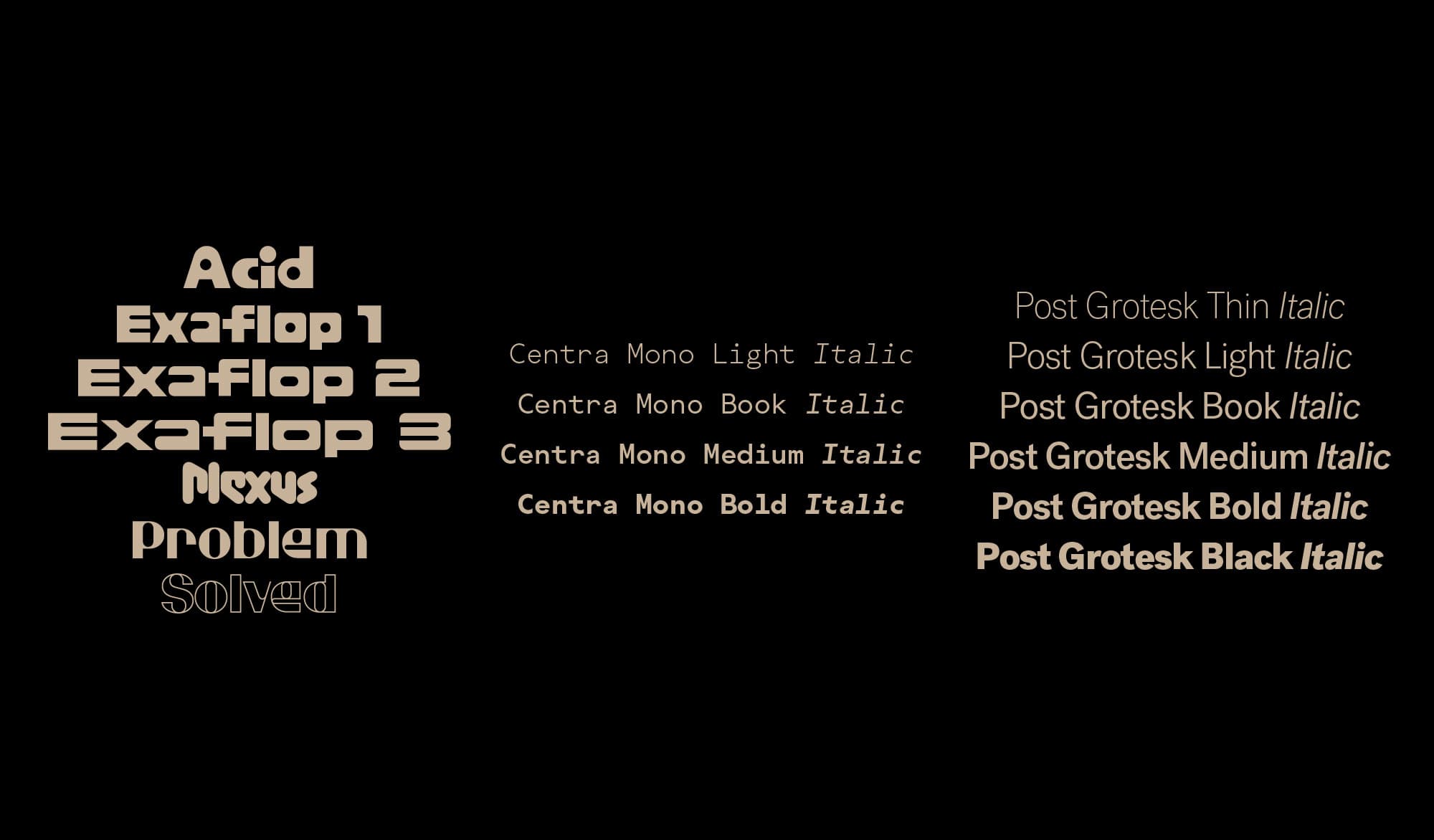
"The stage is home, and home is a stage!"
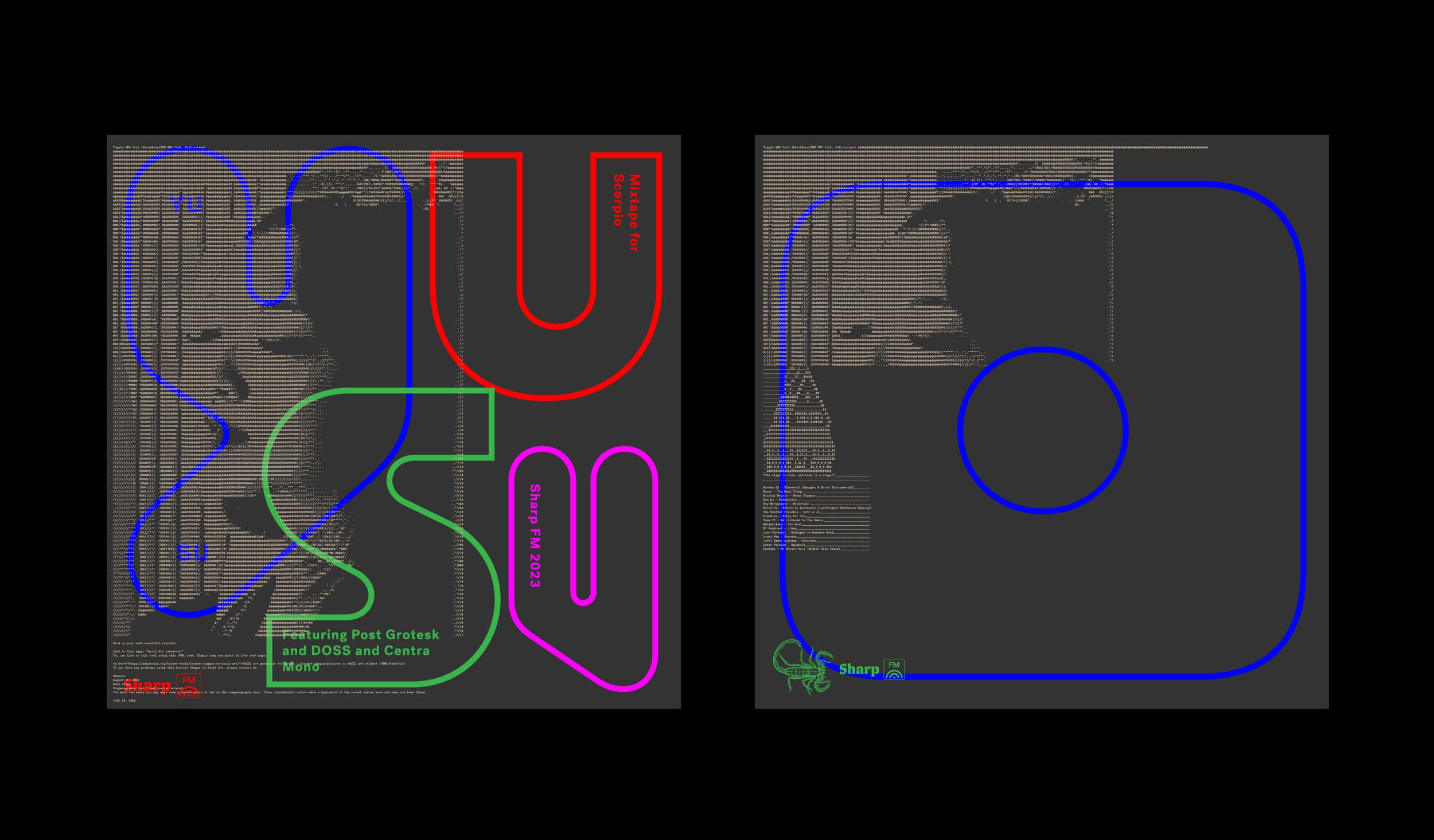
Nominally based in Vancouver, Yu Su’s multi-pronged approach as a DJ, producer, live band lead, and even occasional chef keeps her moving around the globe. Her mix for Sharp FM is a textural and rhythmic odyssey unified by a whimsical warmth and an intuitive depth as deep as the Marianas. A cornucopia of fonts—Post Grotesk, Centra Mono, and the entire Doss family—pull it all together for the cover art. Home is where you make it.
Yu Su's place in music feels charmingly larger than the world of contemporary club culture. Her rural roots in central China and a classical piano education preceded a conversion to electronic dance music after attending a rave in Vancouver during college. These biographical details combine with her no-nonsense confidence and dedication to craft, resulting in a sonic presence that effortlessly expands beyond the fractals of an increasingly niche electronic music scene. “Fundamentally, because I don’t come from an electronic music background, I don’t actually know much about dance music—so I approach it more from a musician’s perspective,” she says.
Yu's mix is a mid-tempo ride where unexpected sounds tangent: Bollywood covers and steel pedal guitar filigrees blend seamlessly. The immediate memory is of a dubbed-out montage touring the gorgeous freak terrains of the Fourth World. The cover and tracklist mirror this: the restrained, contemporary refinements of Josh Finklea's Post Grotesk and Centra Mono are set alongside the futuristic rave-outs of Marc Rouault's Doss family, while a bold solid lines of color sit atop the grey-scale of an ASCII-textured background.